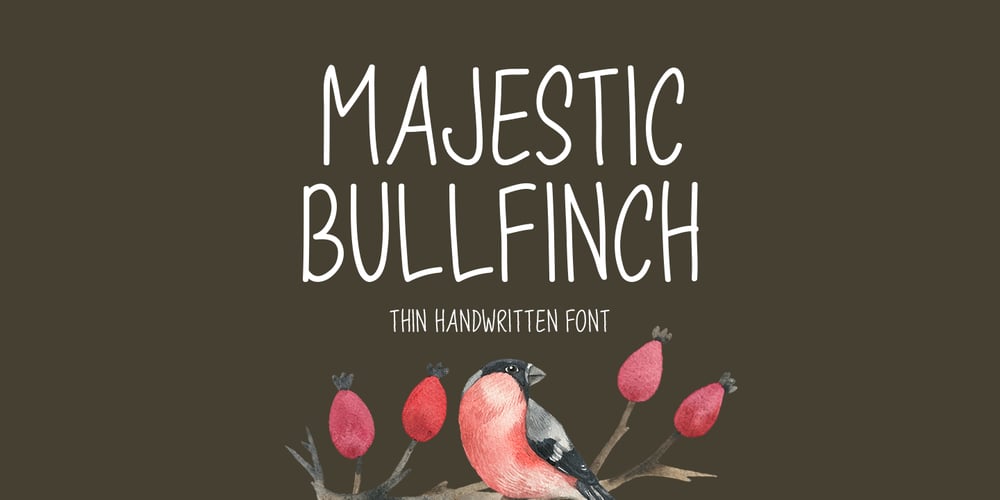
Majestic Bullfinch Font Family was designed by Md Shohail Bhuian and published by Seemly Fonts. Majestic Bullfinch contains 1 styles and family package options. Majestic Bullfinch embodies elegance with its delicate handwritten strokes. This refined font lends itself to a wide array of applications, from stationery and logos to apparel and digital designs. With its graceful curves and timeless appeal, Majestic Bullfinch elevates any project, whether it’s a print design, website header, or album cover. Add a touch of sophistication to your creations with this versatile script font.